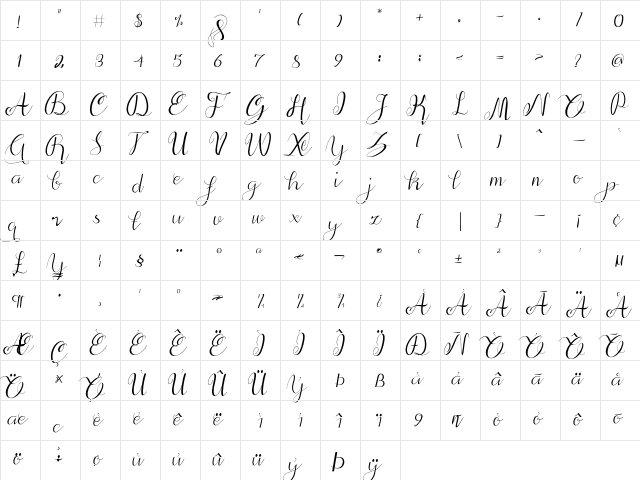
alif script
| Style | script |
| Foundry | afredo.fk |
| Designer | afredo.fk |
Design Context for alif Typeface
alif brings a calligraphic fluidity to the page — its connecting strokes and expressive curves give it an unmistakably human quality.
Font Pairing: Combine alif with a simple geometric sans for maximum contrast — the tension between flowing curves and clean structure is a classic typographic pairing.
Pro Tip: Use alif for short runs of text — names, titles, or taglines. Extended body copy in script faces tires the eye quickly.